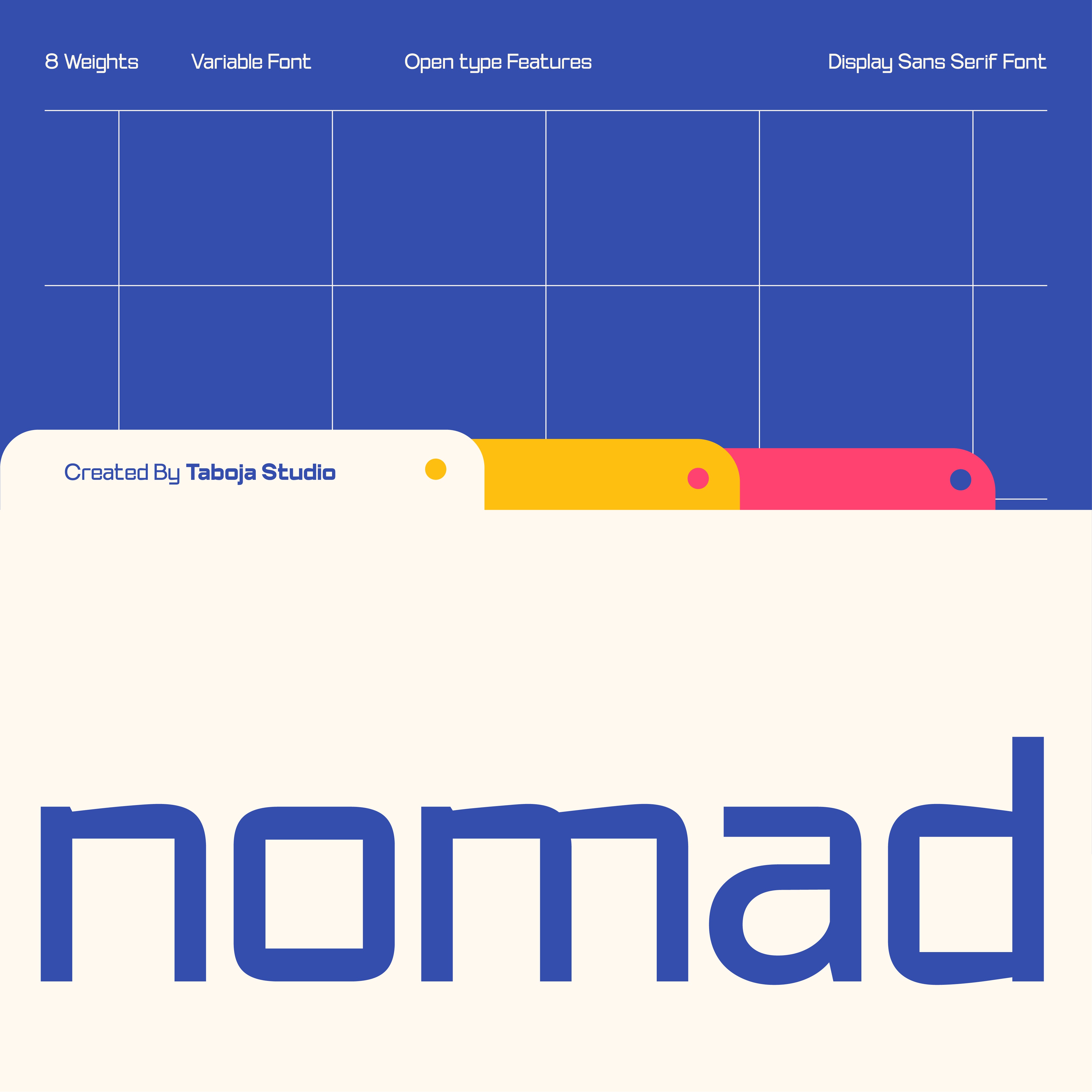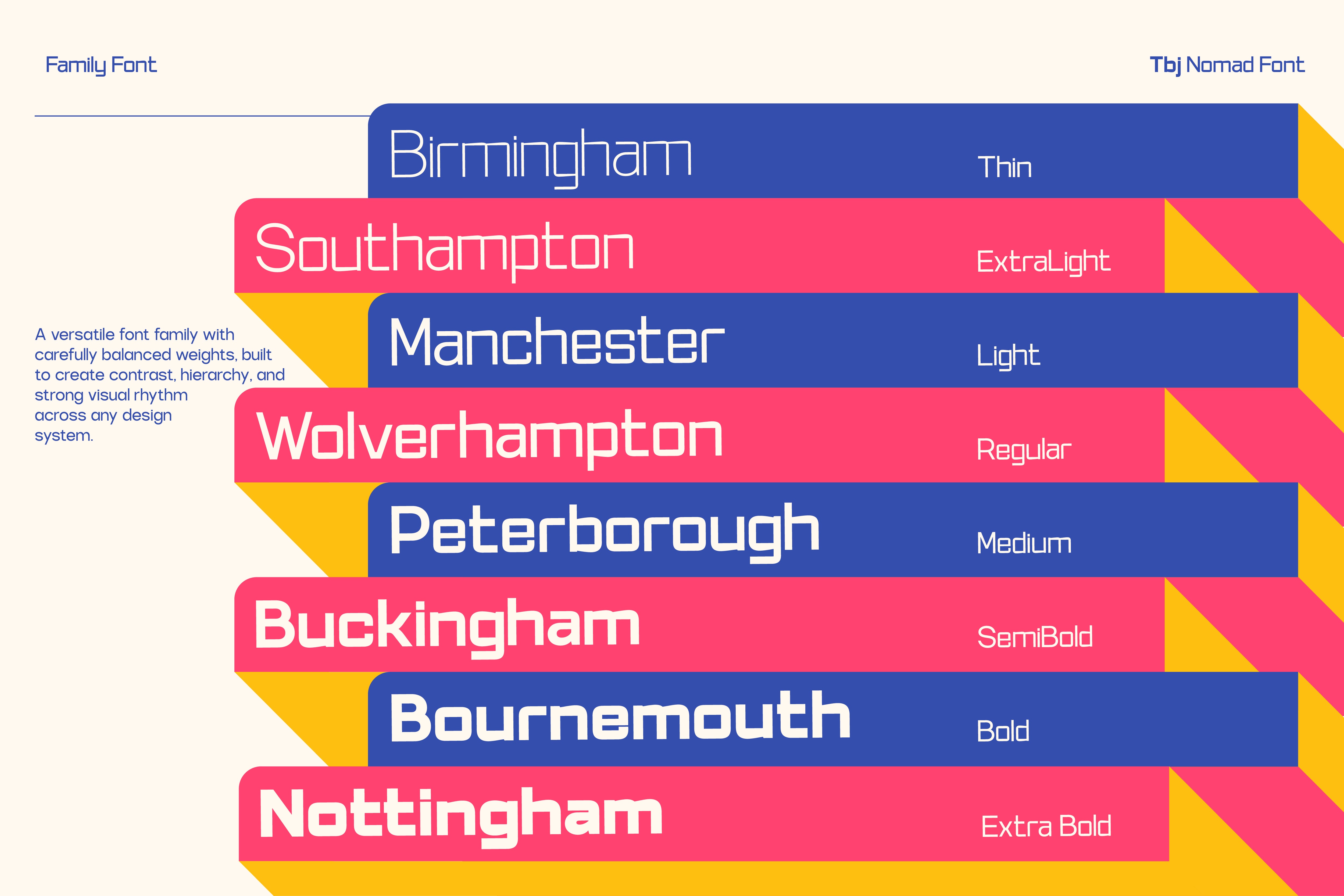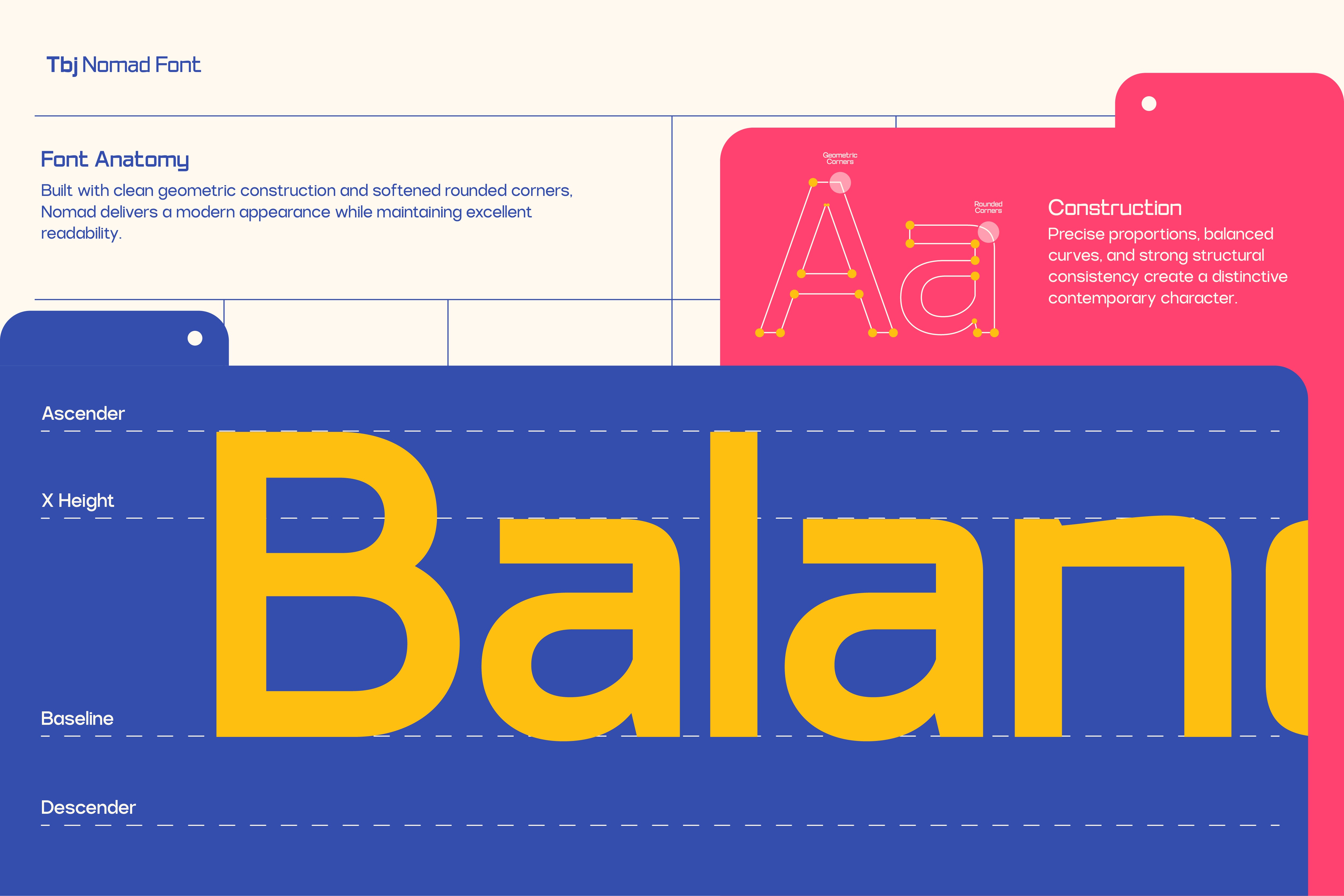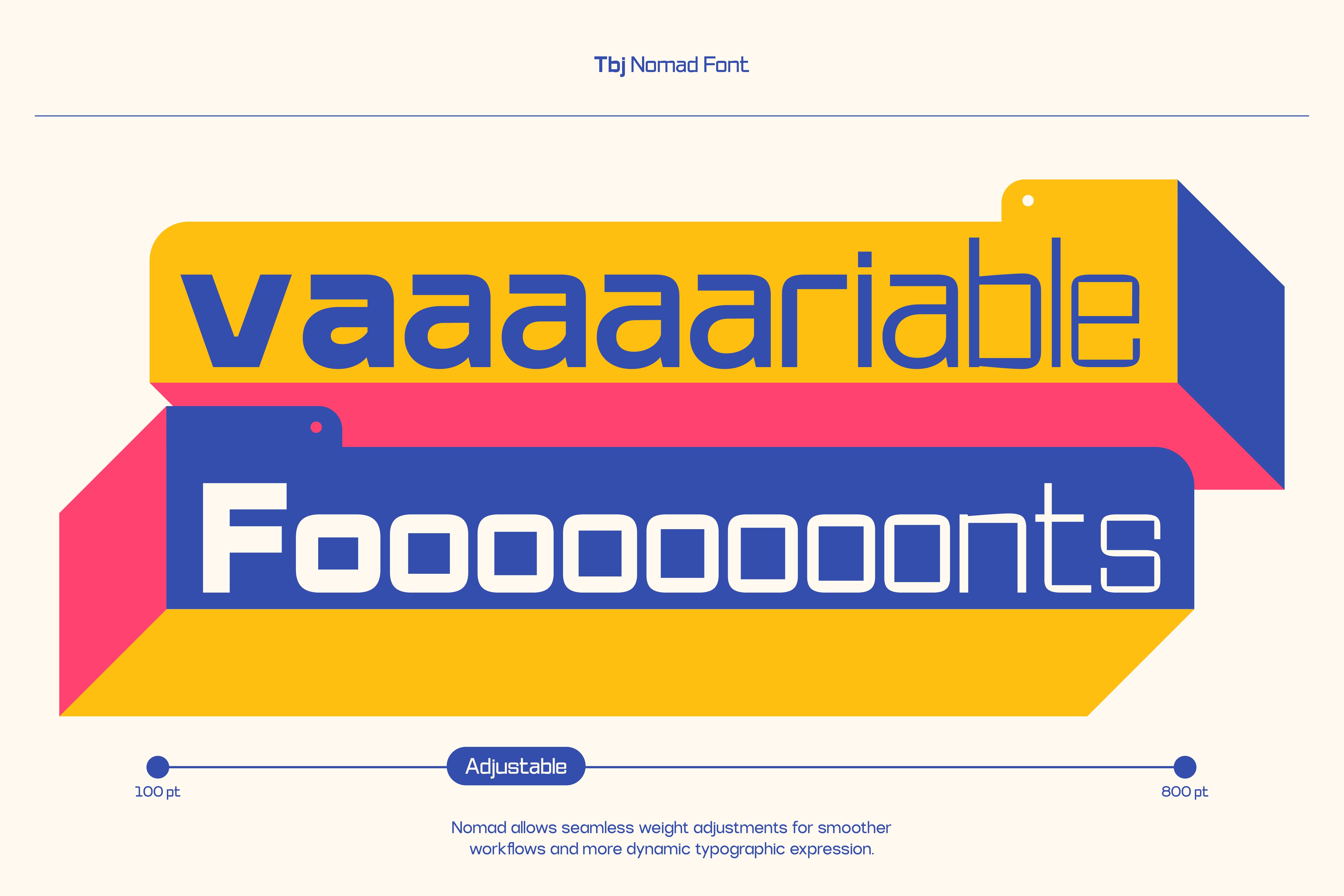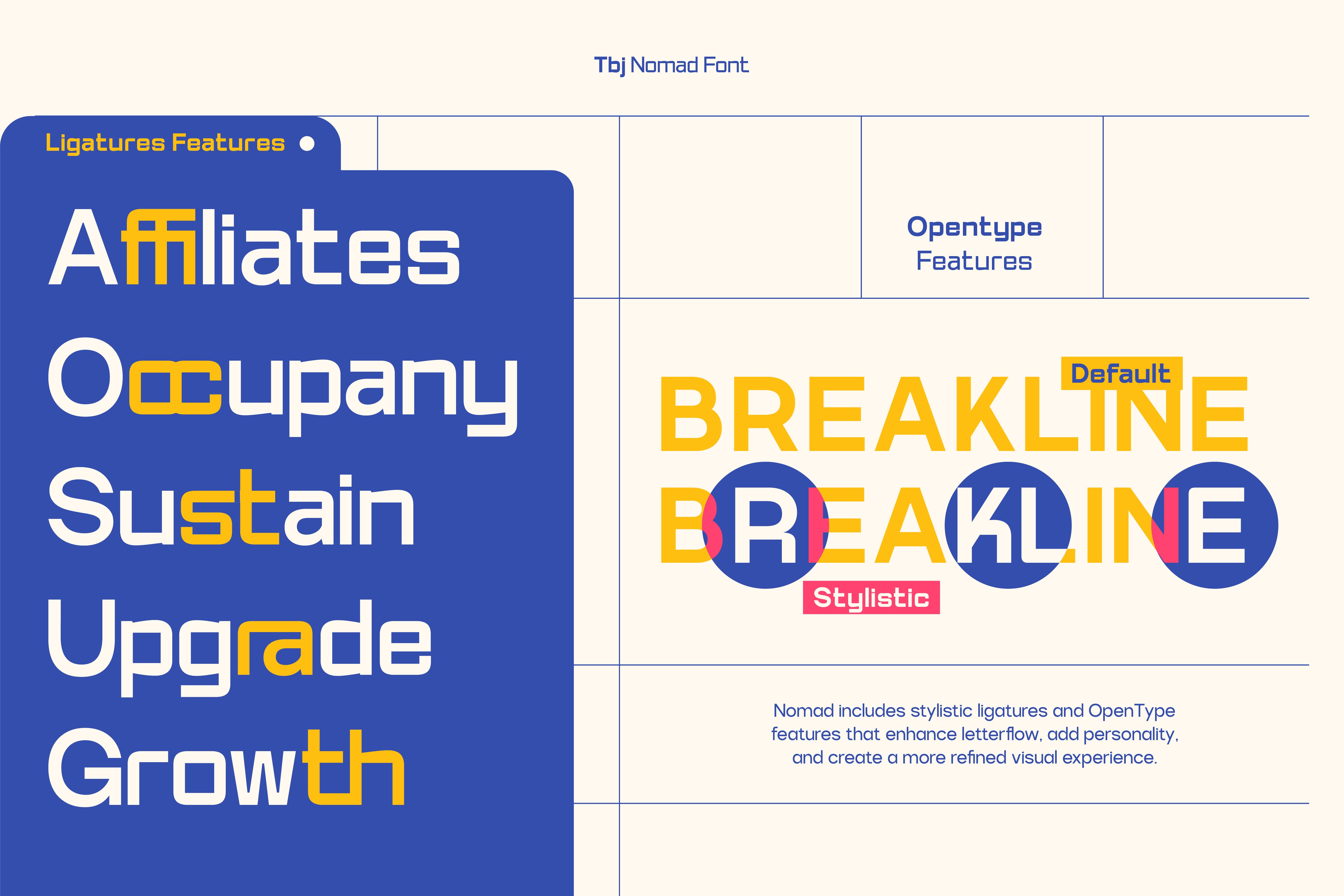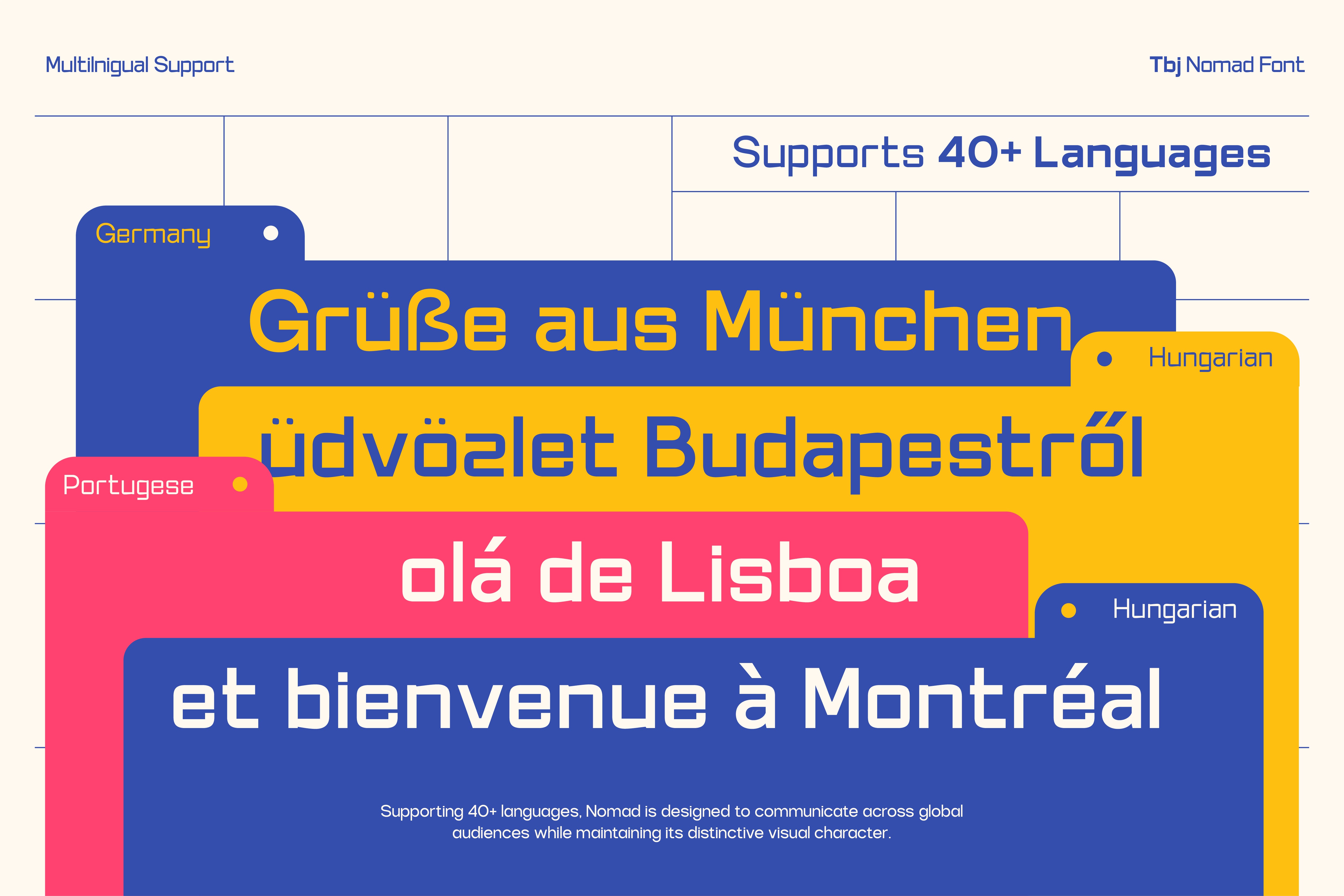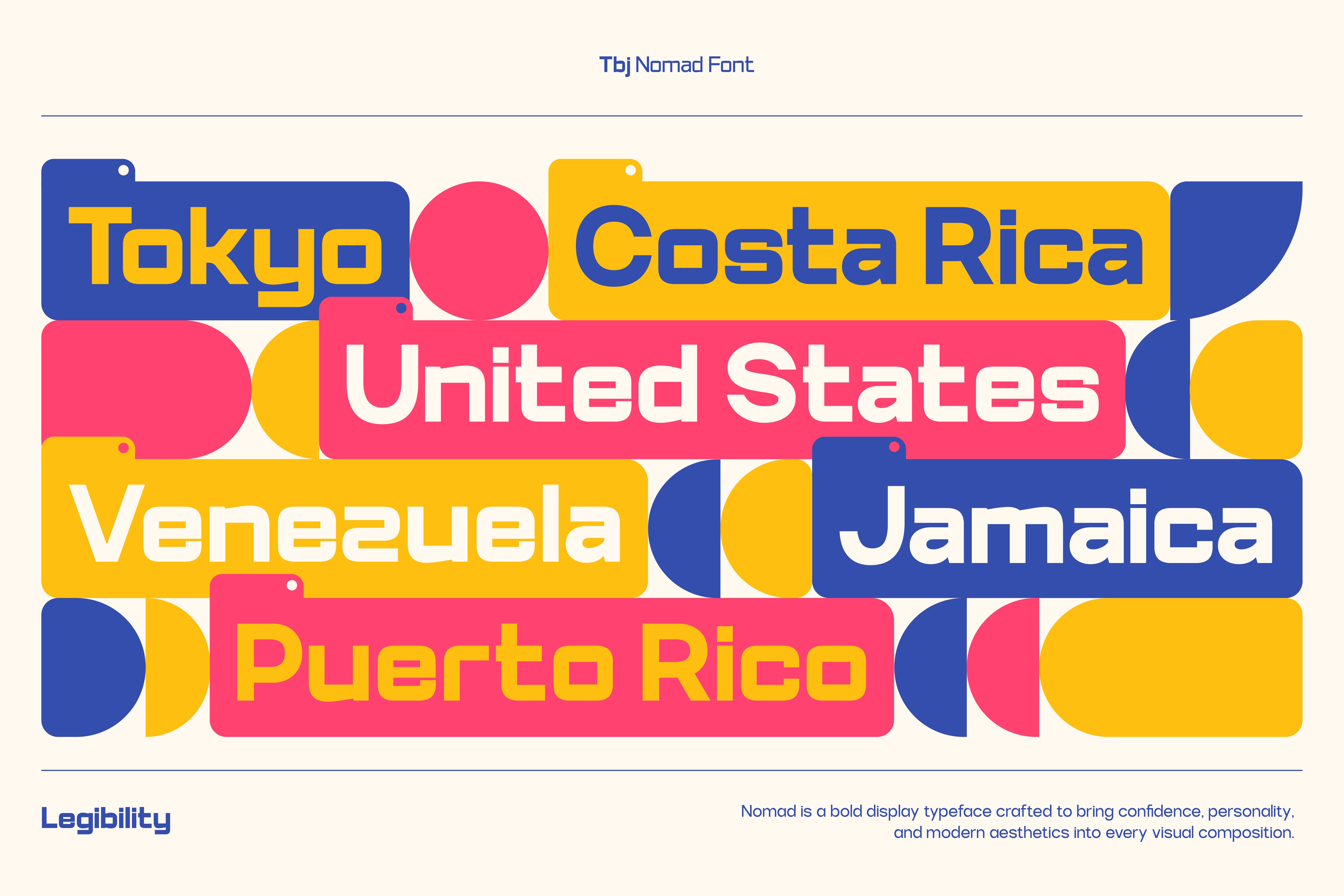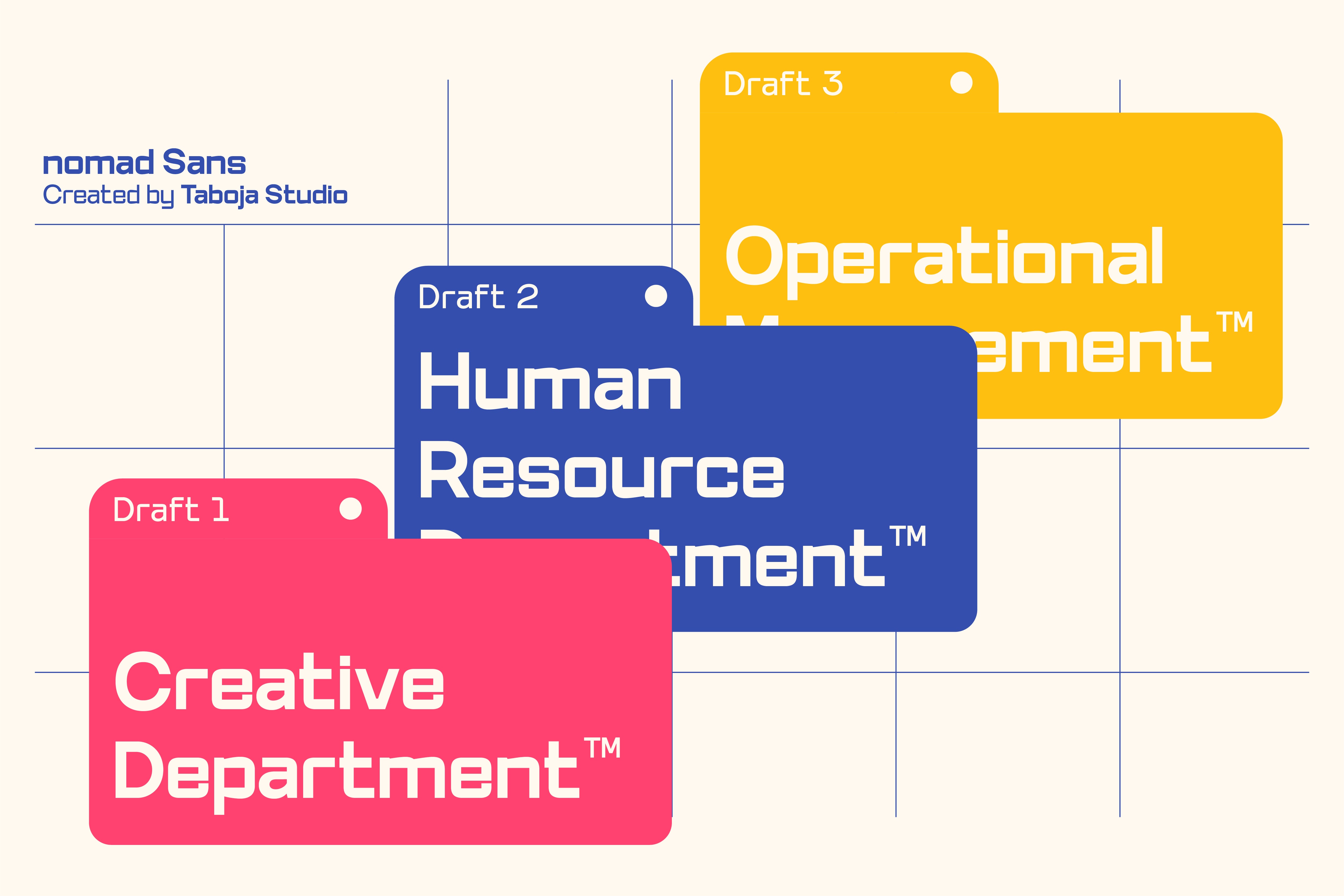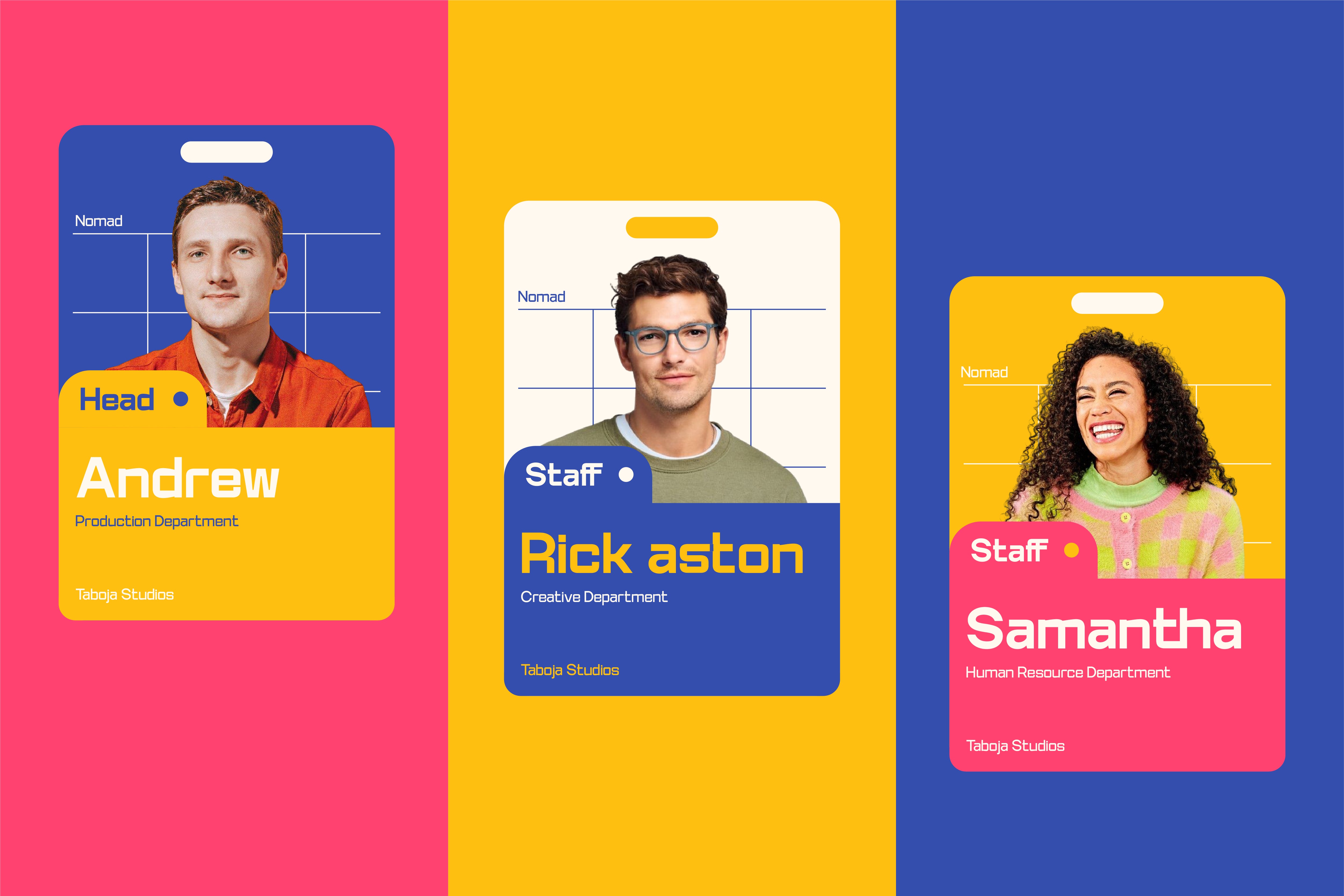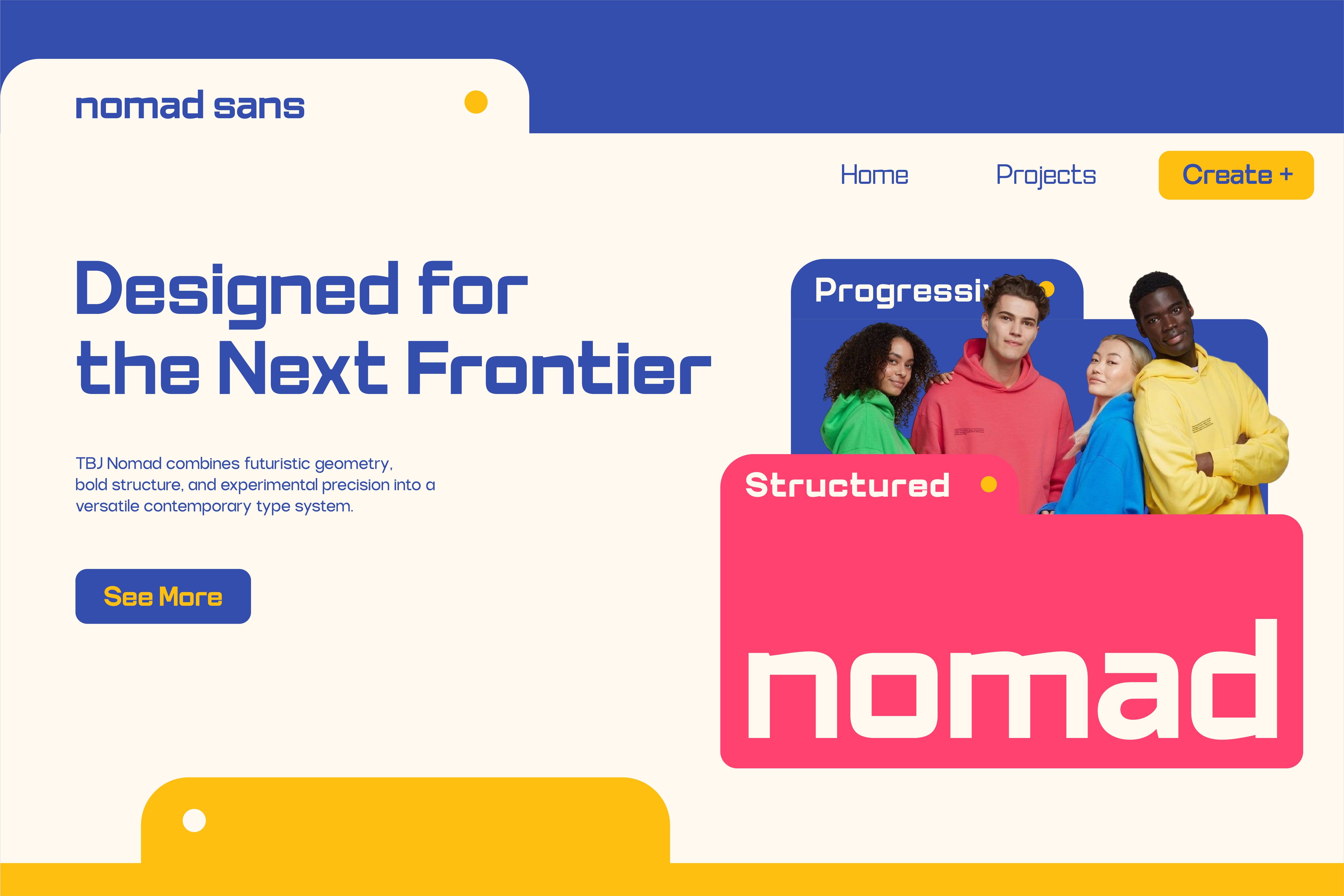
TBJ Nomad — Display Sans Font Family
TBJ Nomad sits between a basic sans and a display face, built for interfaces and headlines that need to hold up on screen. Its lowercase carries soft curves, but the structure underneath stays disciplined, keeping it legible without going flat or generic.
The defining detail is in the terminals. Letters like 'a' and 'e' cut off sharply instead of curling into a full round. Stroke contrast sits at a medium level, giving the letterforms enough presence for headline sizes while staying controlled in dense UI text. Spacing is tuned for digital environments, where rendering behaves differently than print.
TBJ Nomad works for digital headlines, product UI, app interfaces, and card-based layouts across UI/UX design. It suits SaaS products, digital publications, and interface-heavy brands that need a typeface built specifically for screen, not adapted to it. Design systems, dashboards, and mobile-first products are a natural fit.
8 weights: Thin, Extra Light, Light, Regular, Medium, Semi Bold, Bold, Extra Bold
Built specifically for screen and digital UI use
Signature sharp-cut terminals on 'a' and 'e'
Medium stroke contrast for headline and UI legibility
The TBJ Nomad Display Sans Font Family features 8 weights ranging from Thin to Extra Bold and is designed specifically for digital interfaces and headlines. Its unique sharp-cut terminals on letters like 'a' and 'e', along with medium stroke contrast, ensure legibility in both headline and UI text, making it suitable for various digital applications.